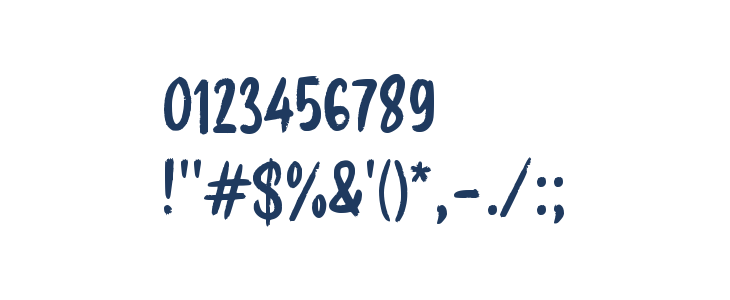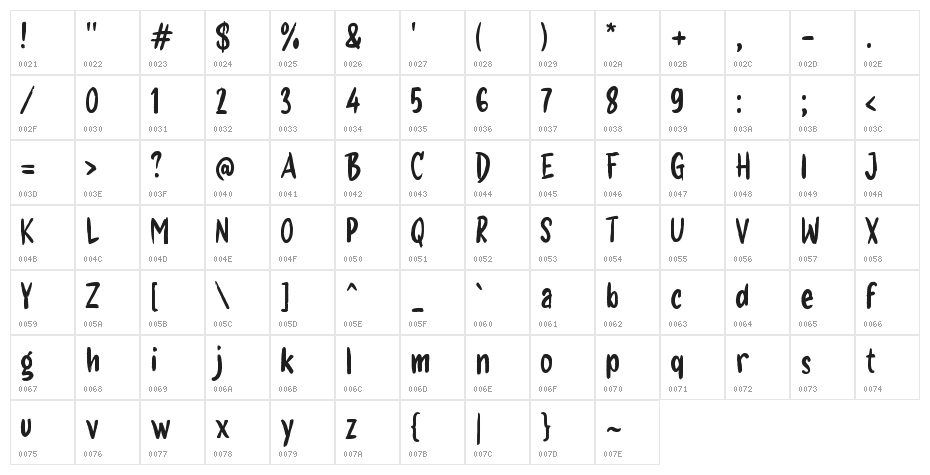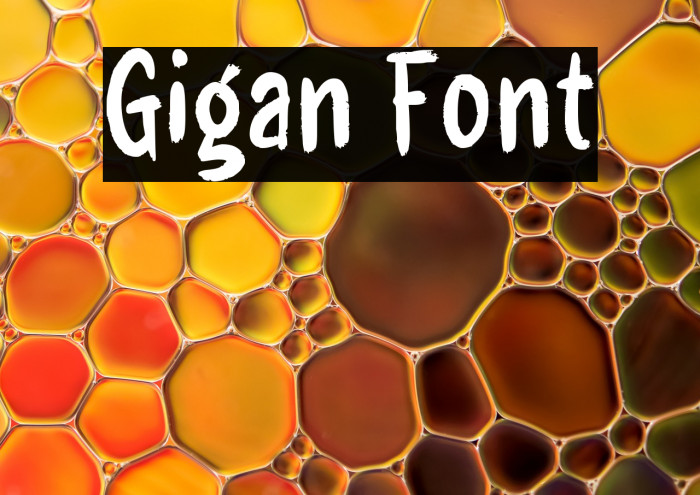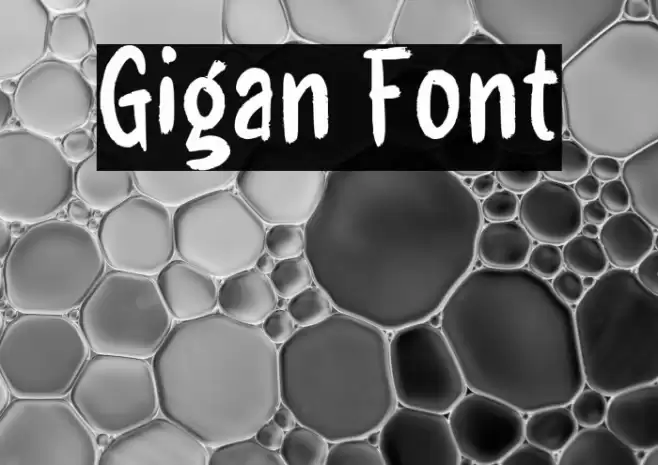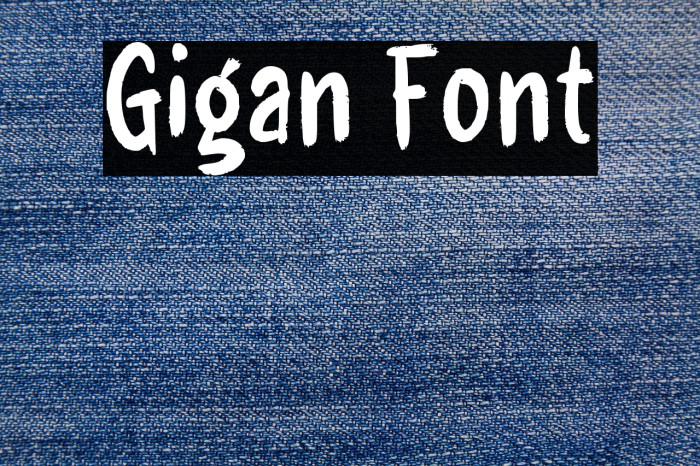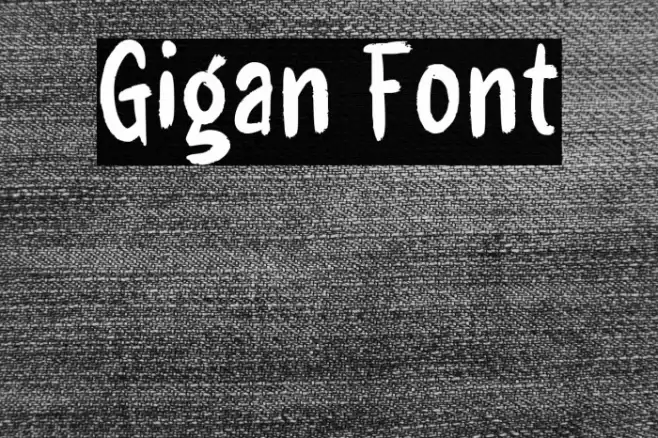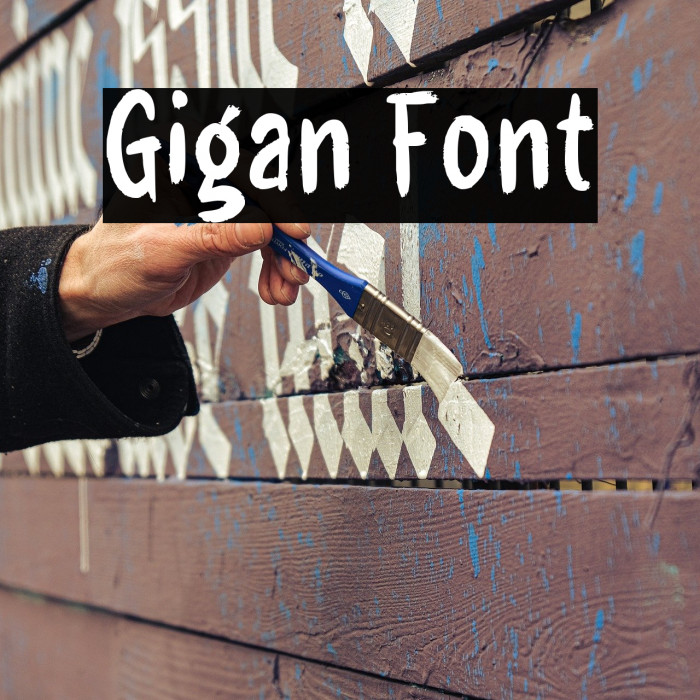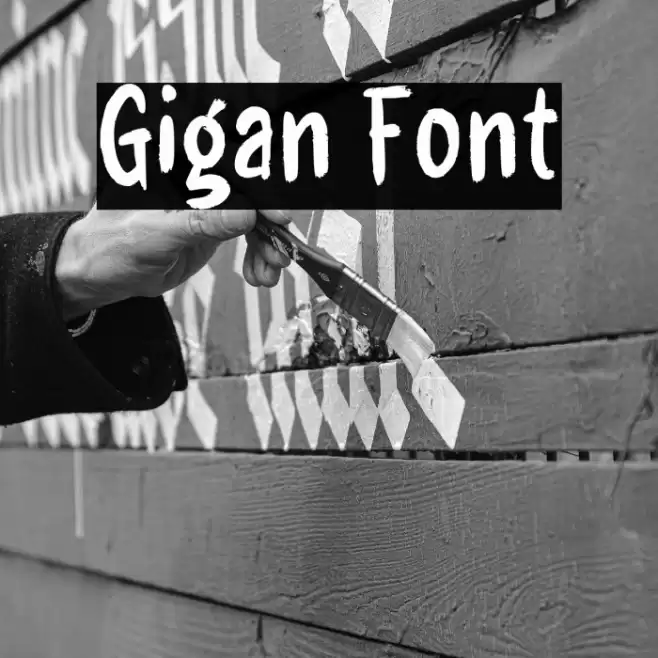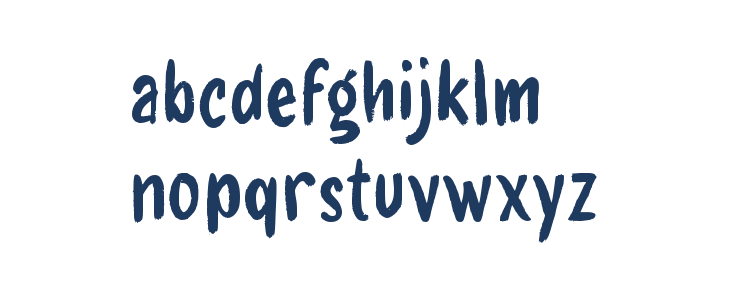
Gigan Font
Gigan Description
This font features a bold, hand-drawn style with a playful and energetic appearance. The letters have a rough, textured edge that gives them a dynamic and informal look. The uppercase and lowercase characters maintain a consistent style, with slightly exaggerated curves and angles that add to the font's lively character. Numbers and special characters are designed with the same hand-crafted feel, making them blend seamlessly with the alphabet. This font is ideal for projects that require a personal touch or a sense of spontaneity.